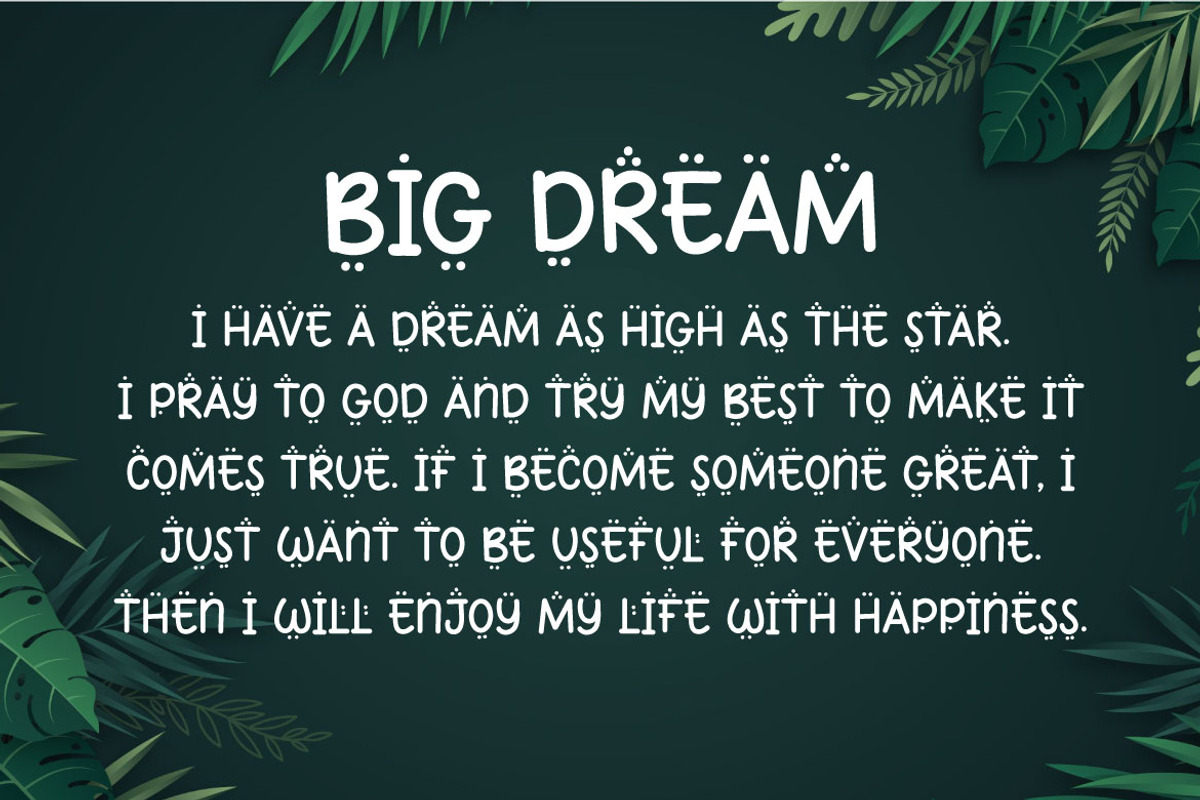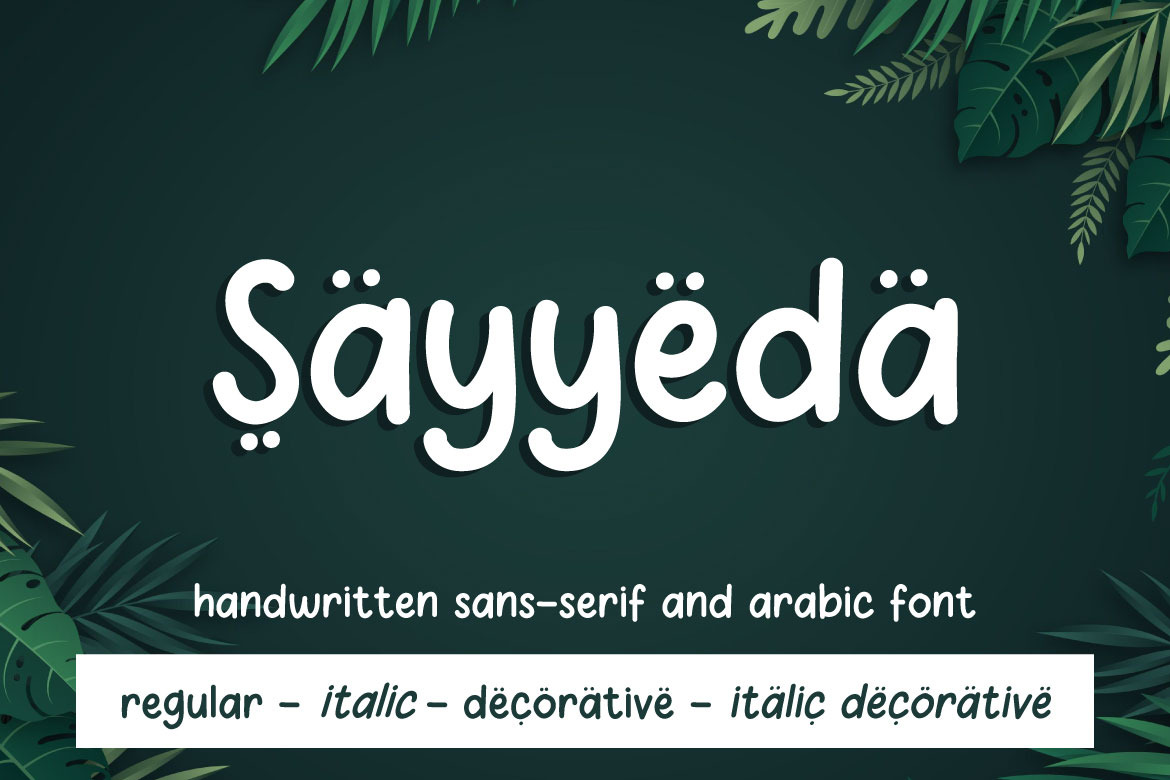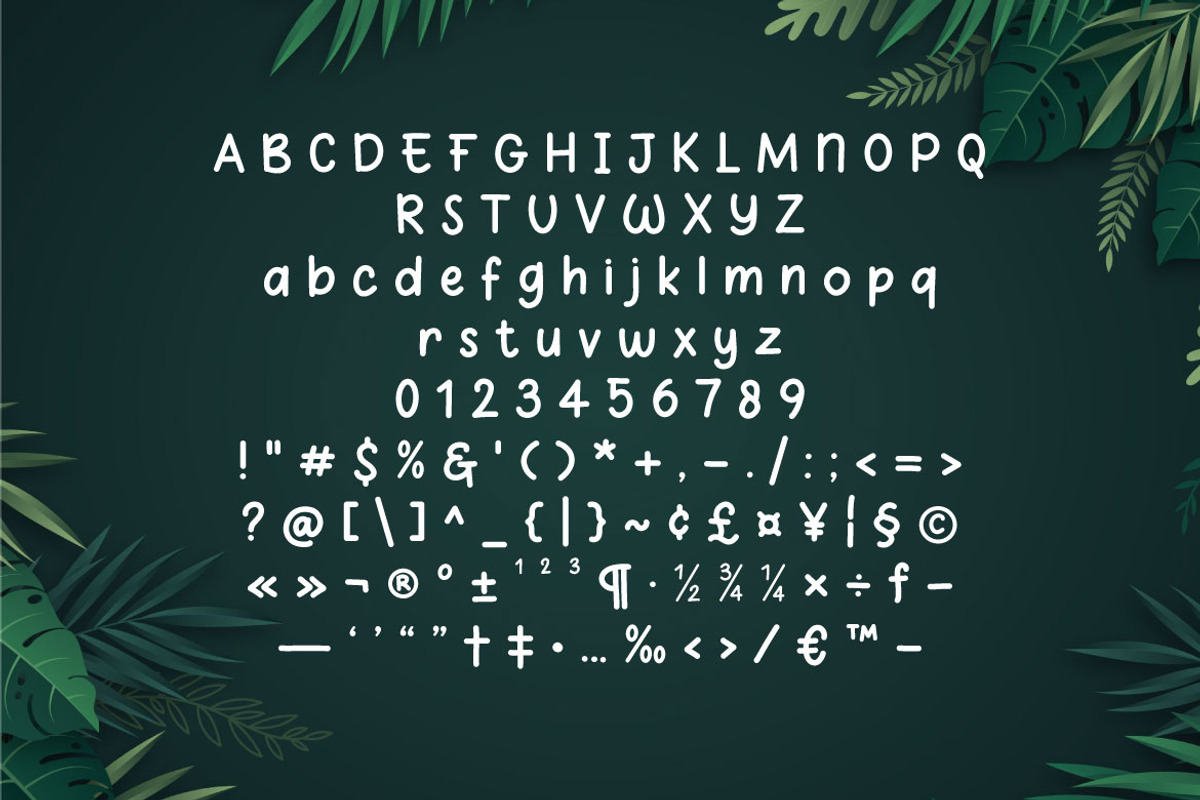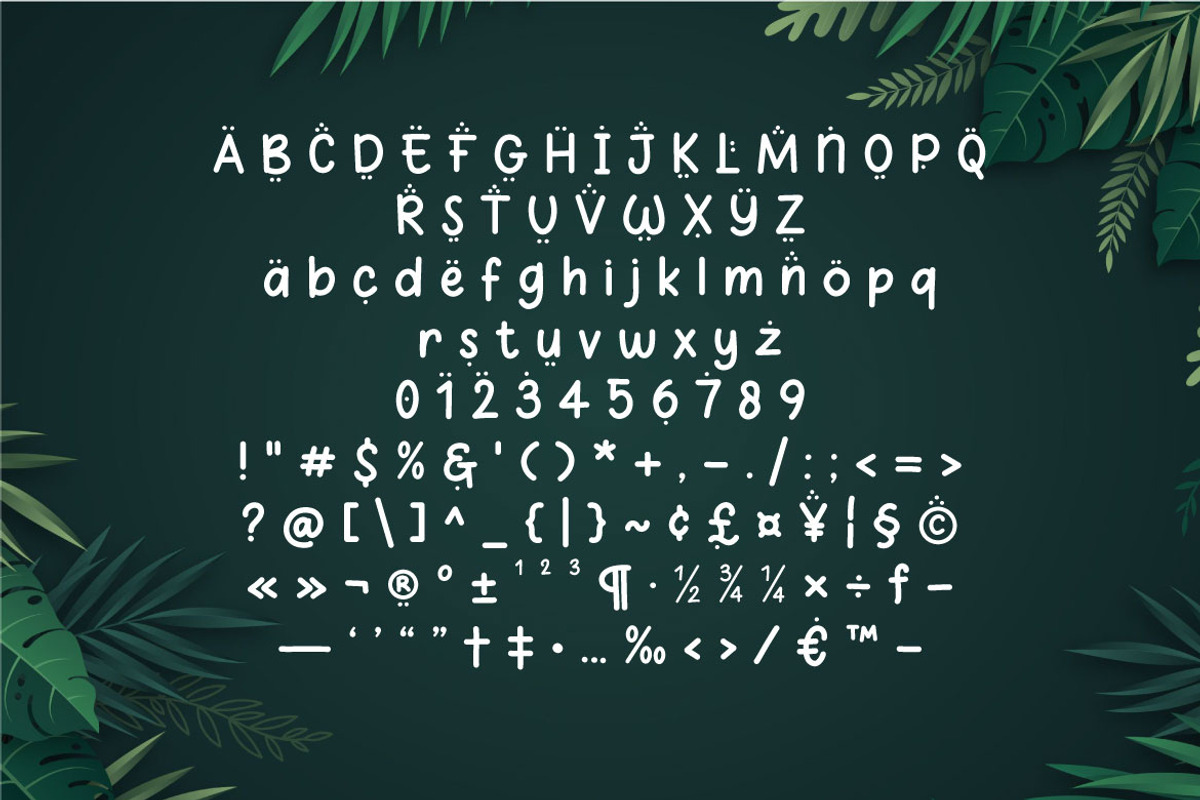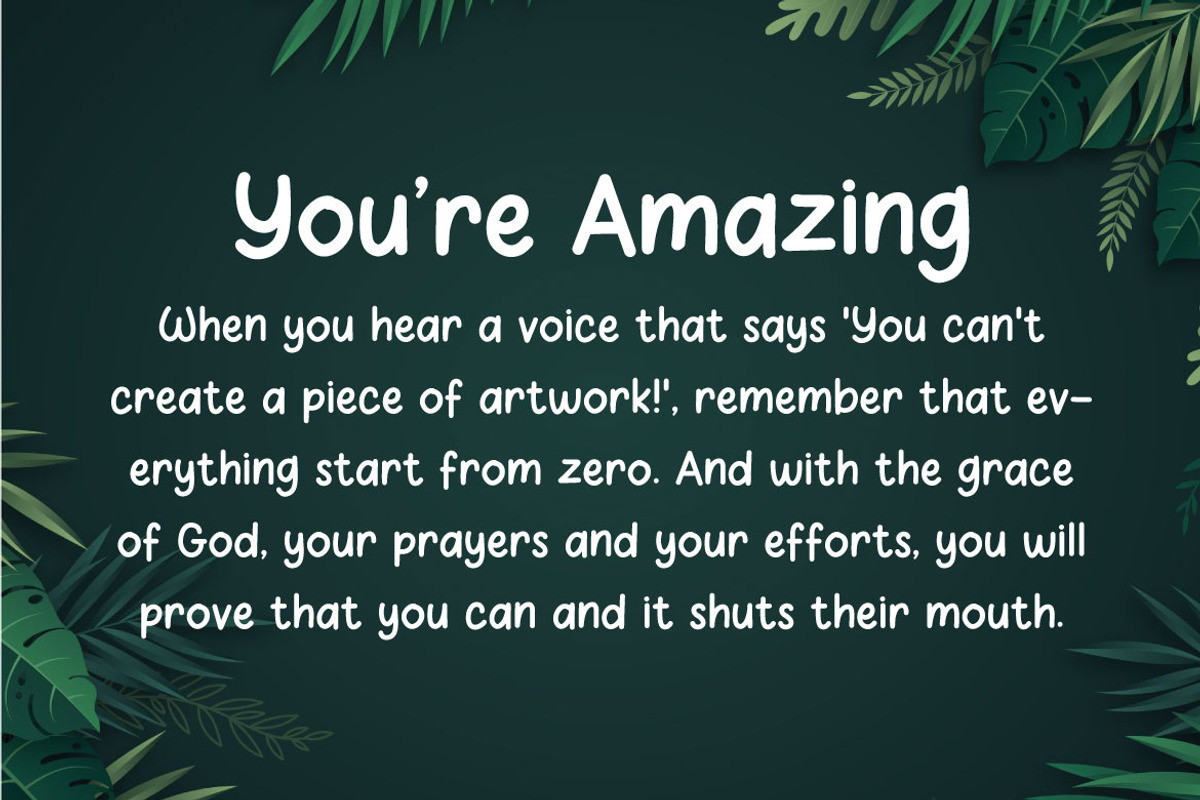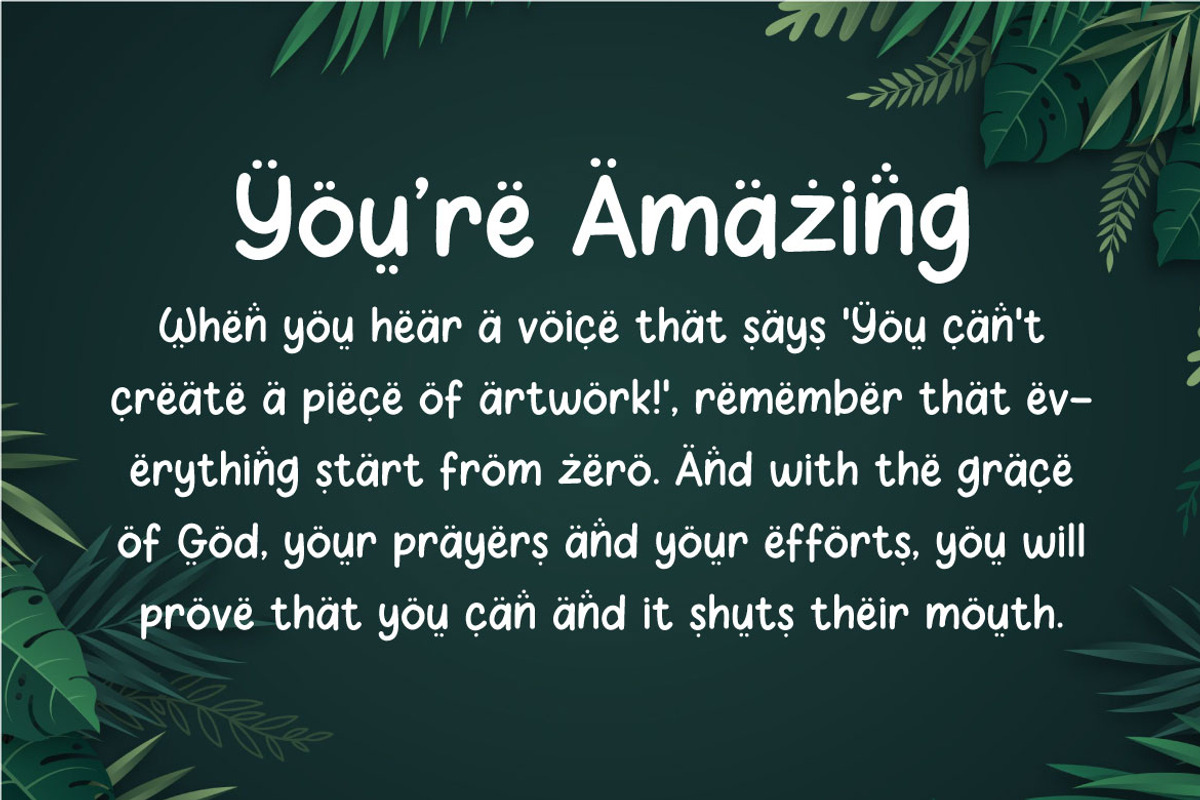
Sayyeda - Comic and Decorative Font
Hello! Sayyeda is a modern display font. Sayyeda can be used in any works such as banner, card, islamic book, storybook, comic book, school, flyer, book title, advertisement, social media content, logo and many more.